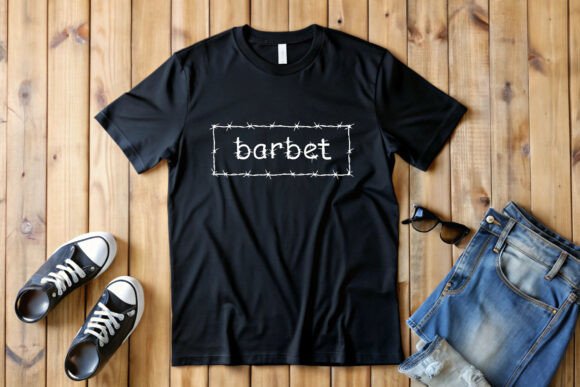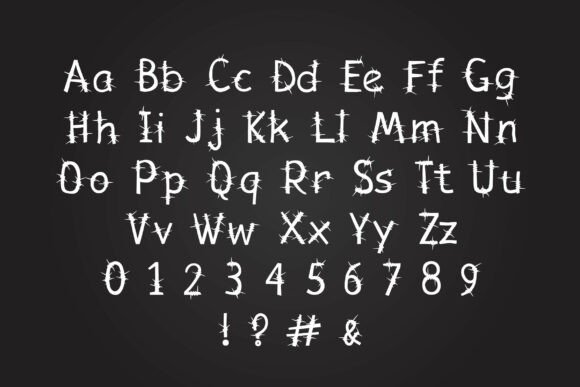
Unleash Your Inner Rebel with the Barbed Wire Font
You’re brainstorming ideas for a new music festival poster, and suddenly, a burst of creativity strikes. You envision a bold, edgy design that captures the raw energy of the underground music scene. But what font can do justice to this high-octane aesthetic? Enter the Barbed Wire Font, a gritty decorative font that’s about to become your go-to choice for anything rebellious and unconventional.
This striking font is designed to add a sharp, industrial edge to your designs, making it perfect for heavy metal or punk rock band identities, streetwear branding, urban tactical gear, and dark-themed poster art. With its unique barbed wire motifs, the Barbed Wire Font provides a visual barrier that commands attention, making it an invaluable tool for designers who want to create bold, uncompromising designs.
- Unique Characteristics: The Barbed Wire Font features a distressed, vintage aesthetic with a unique blend of rough textures and ornate details, perfect for adding a touch of industrial charm to designs.
Barbed Wire Font Review
At first glance, I thought the Barbed Wire Font was an interesting choice for a display font. ✨ It’s certainly unique and can add a bit of an edgy vibe to a design. The font’s distressed and rough texture is reminiscent of old metal wire, which is pretty cool.
- ✨ The font’s texture and distressed look can add a lot of character to a design.
- ✨ The font is available in a range of weights, from light to bold, which makes it versatile.
- ✨ The font is great for use in logos, headlines, and other display text where you want to add some visual interest.
However, I do have a few concerns. ⚠️ The font can be a bit difficult to read in smaller sizes, and the texture can sometimes make it hard to distinguish between letters. Additionally, the font may not be suitable for use in body text or for large blocks of text.
Overall, I think the Barbed Wire Font is a great choice for designers who want to add some visual interest to their designs. It’s perfect for use in logos, headlines, and other display text where you want to make a statement. Just be sure to use it wisely and in the right context.
The Barbed Wire font is perfect for:
- Distressed or vintage designs
- Retro-style posters and flyers
- Edgy or industrial-themed designs
- Adding texture and interest to designs